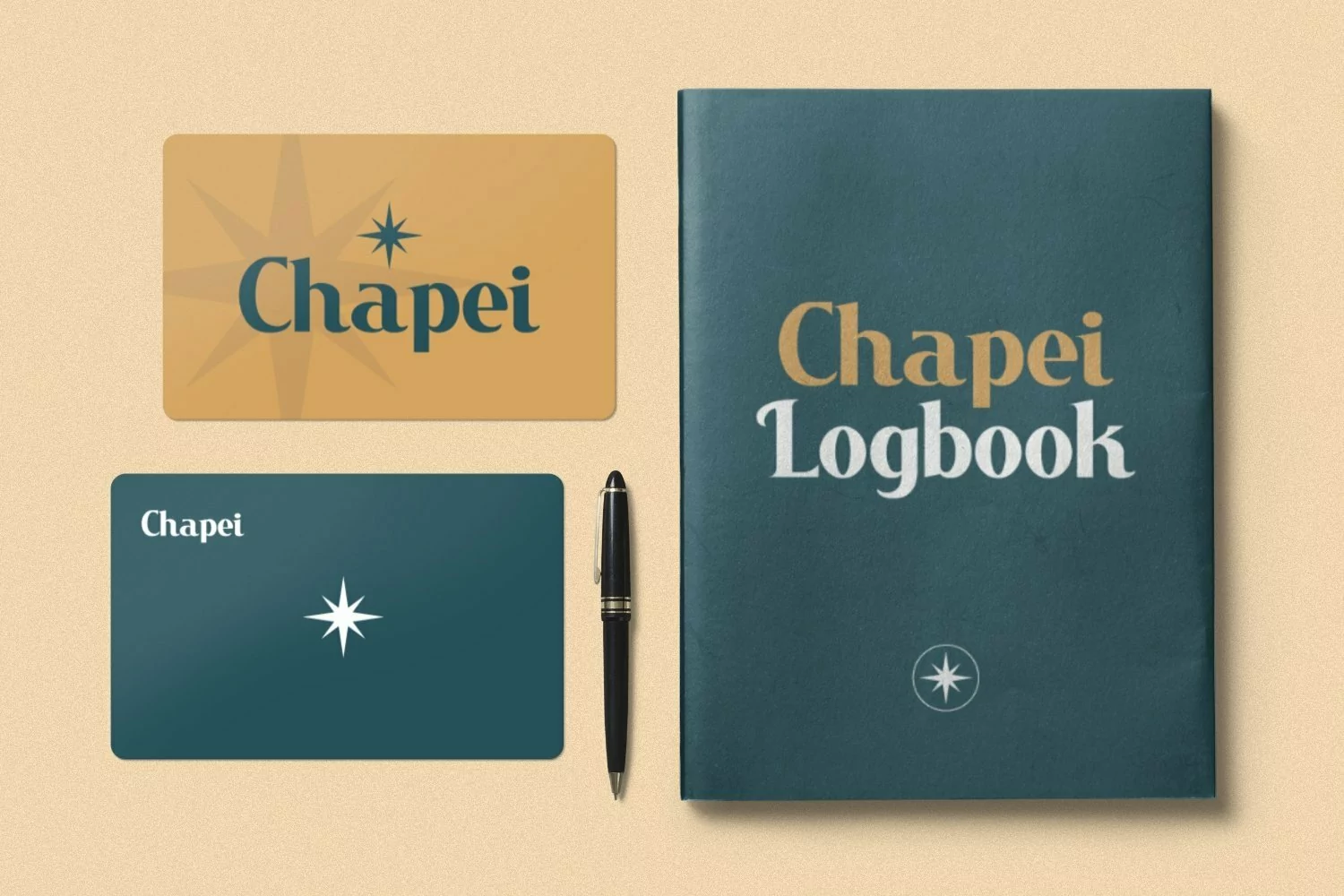
Web Font suitable for logotype, brand, packaging, quotes, music poster, t-shirt, cover book and more custom design. The features uppercase, lowercase, numeral, punctuation & symbol, multilingual support.
BezitgeistRegular